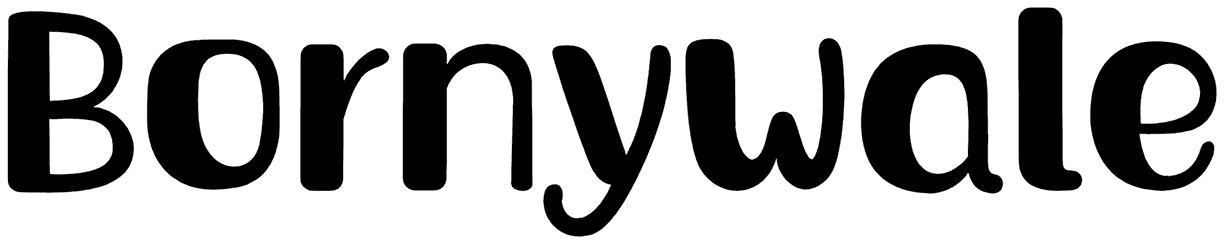
Bornywale Font
Bornywale is a playful cartoon font that carries a sense of youth, joy, drama, and dynamic, thus impressing the audience, especially the youngsters at the first glance. Since one part of its characters are bold and the other is thin, this fancy font has an eye-grabbing look, so you can pick it up and include it in illustrations, book covers, magazines, headlines, and product packaging.